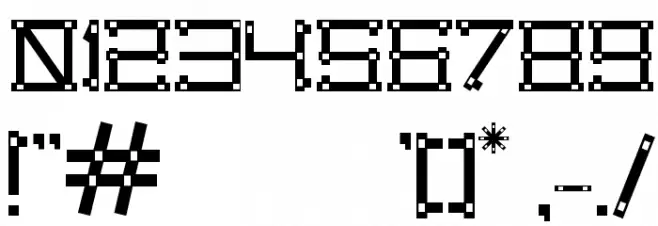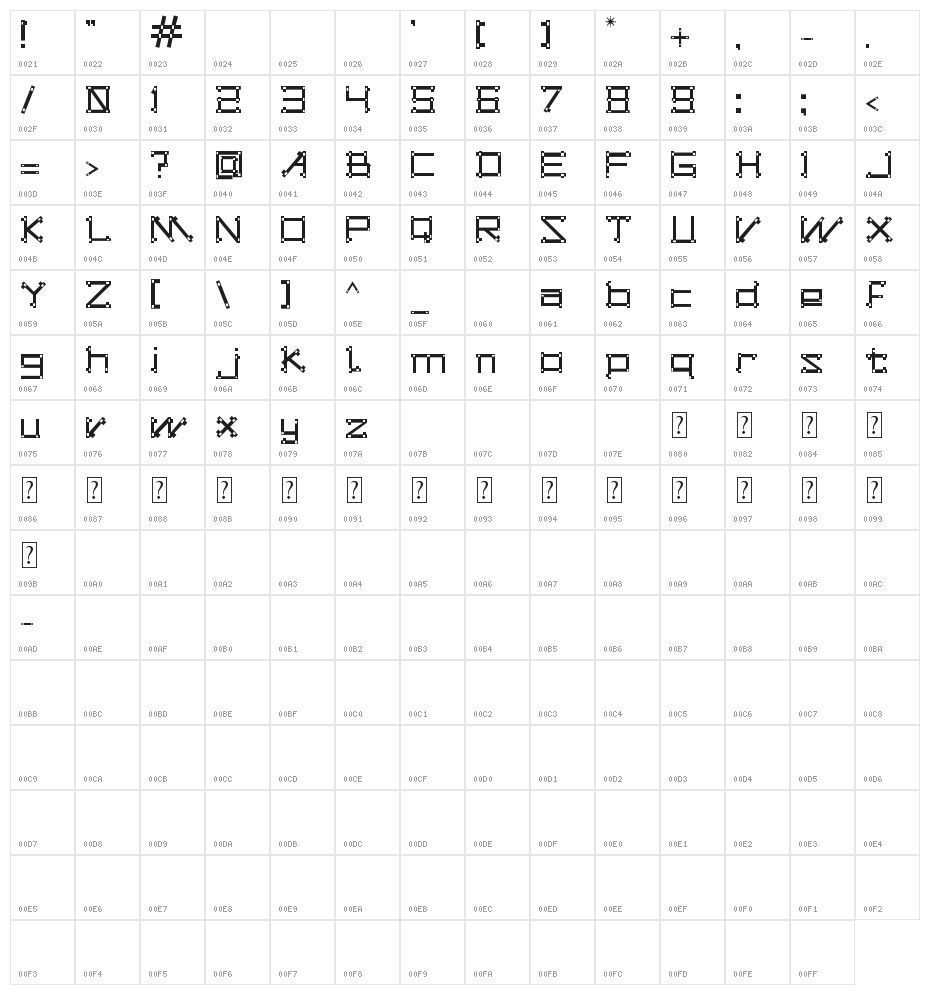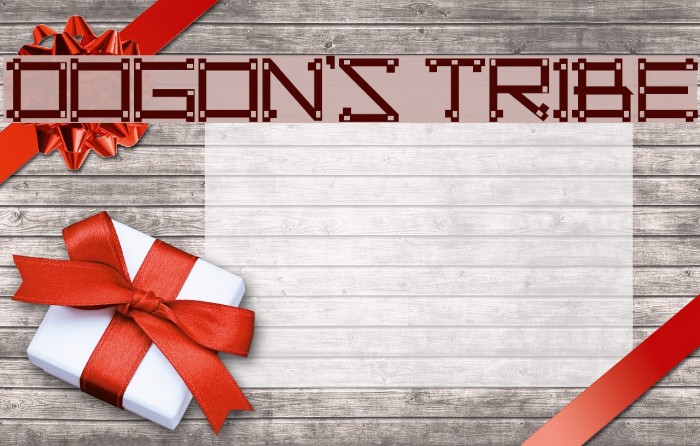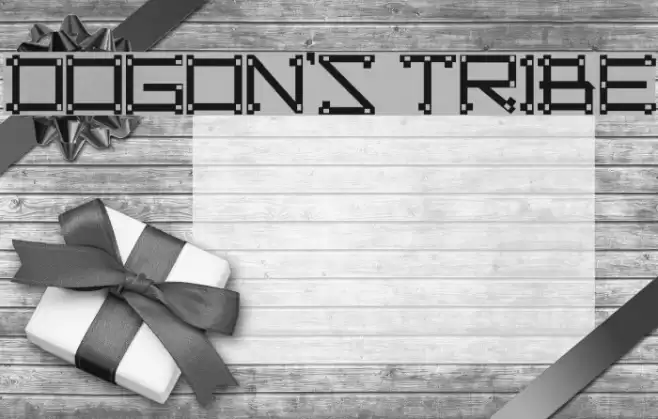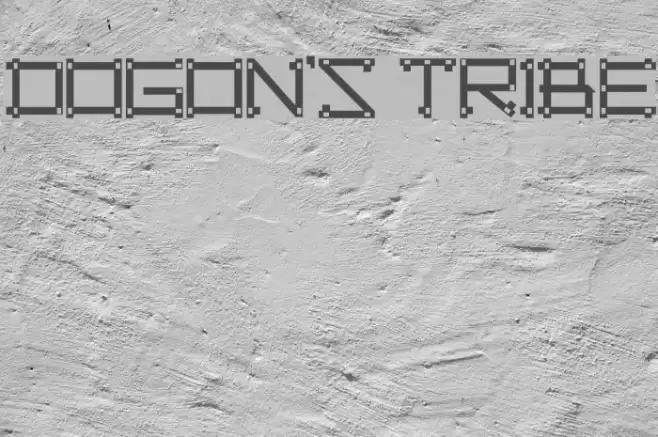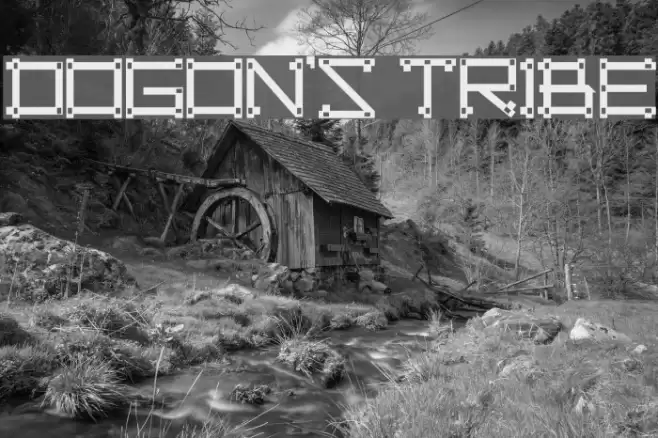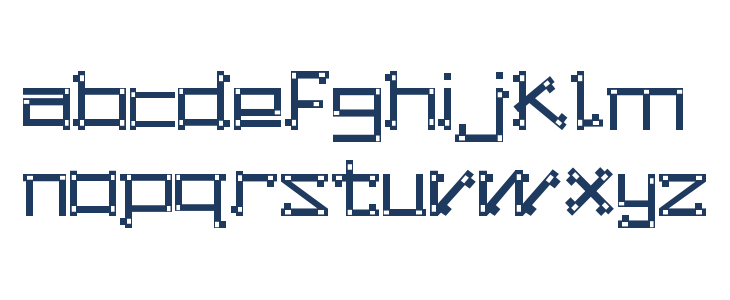
DOGON'S TRIBE Font
DOGON'S TRIBE Description
This font features a unique, geometric design with a pixelated, digital aesthetic. Each character is constructed with a series of connected lines and dots, creating a futuristic and tech-inspired look. The uppercase and lowercase letters maintain a consistent style, with sharp angles and a modular structure. Numbers and special characters follow the same design principles, ensuring uniformity across all elements. The font's distinct appearance makes it ideal for projects that require a modern and innovative touch.
| Use Case | Logos, Headlines, Digital interfaces |
| Proposed Projects | Ideal for digital art, tech branding, video game interfaces, and modern posters. |